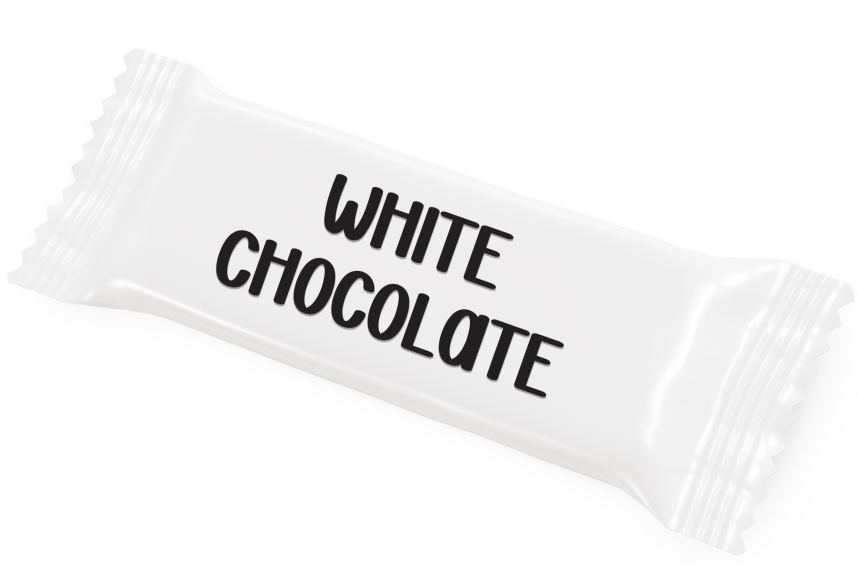
Season Summer – Playful And Unique Font
Season Summer – Playful And Unique Font is a sweet and friendly handwritten display font. Cute and fun, this font is ideal for writing wedding invitations, cards, or any other design that might need a playful touch!